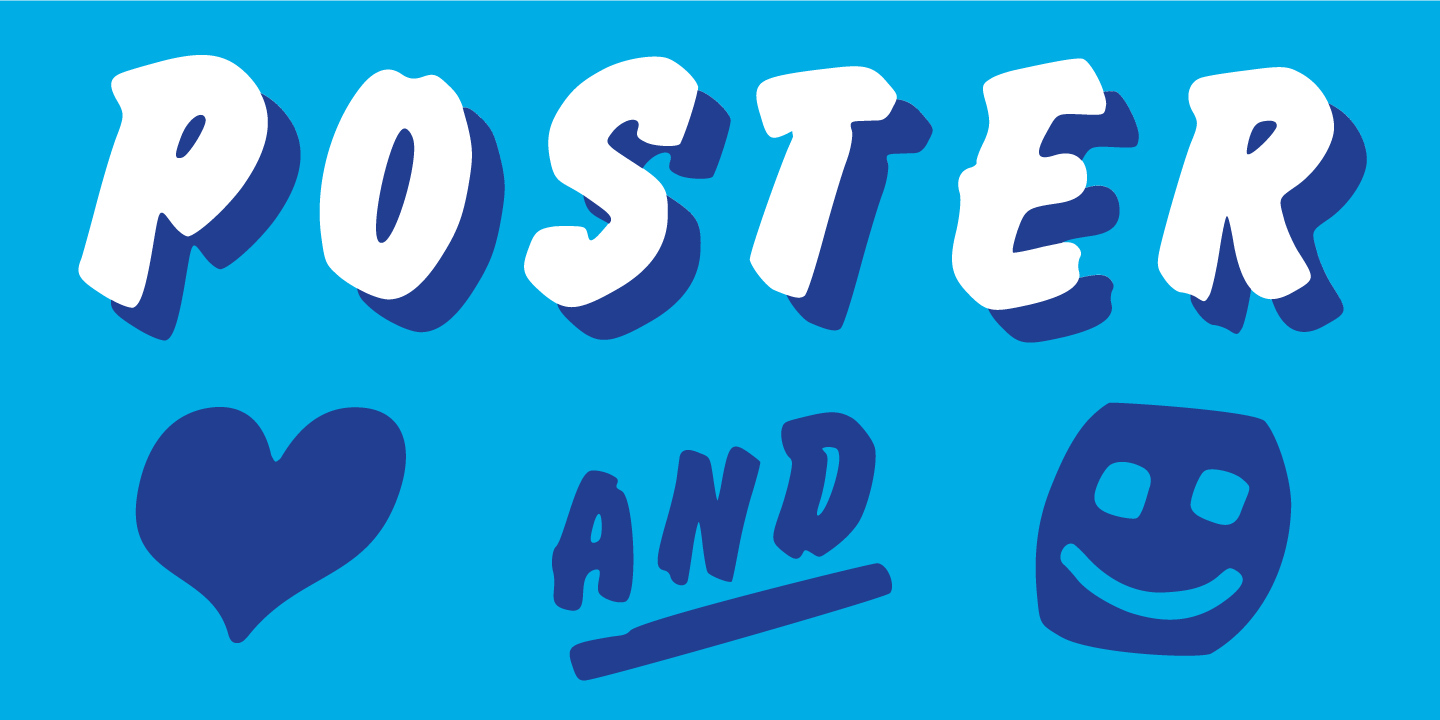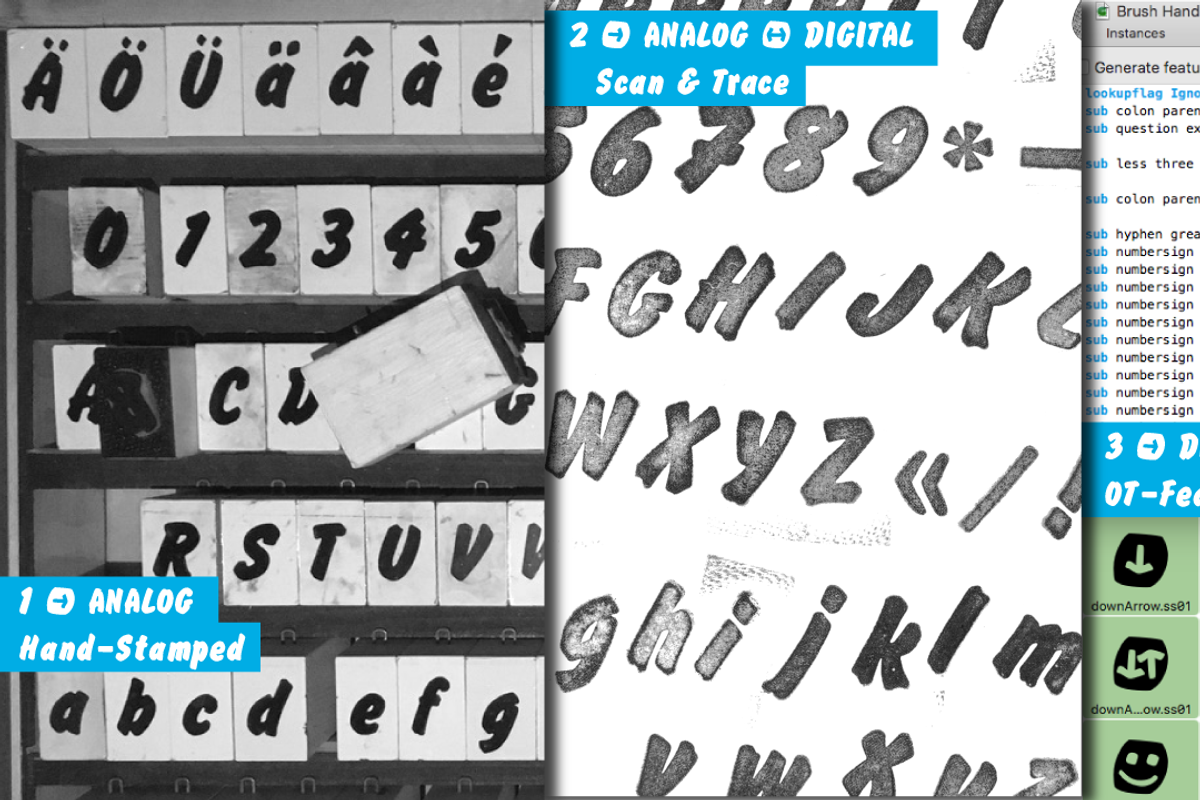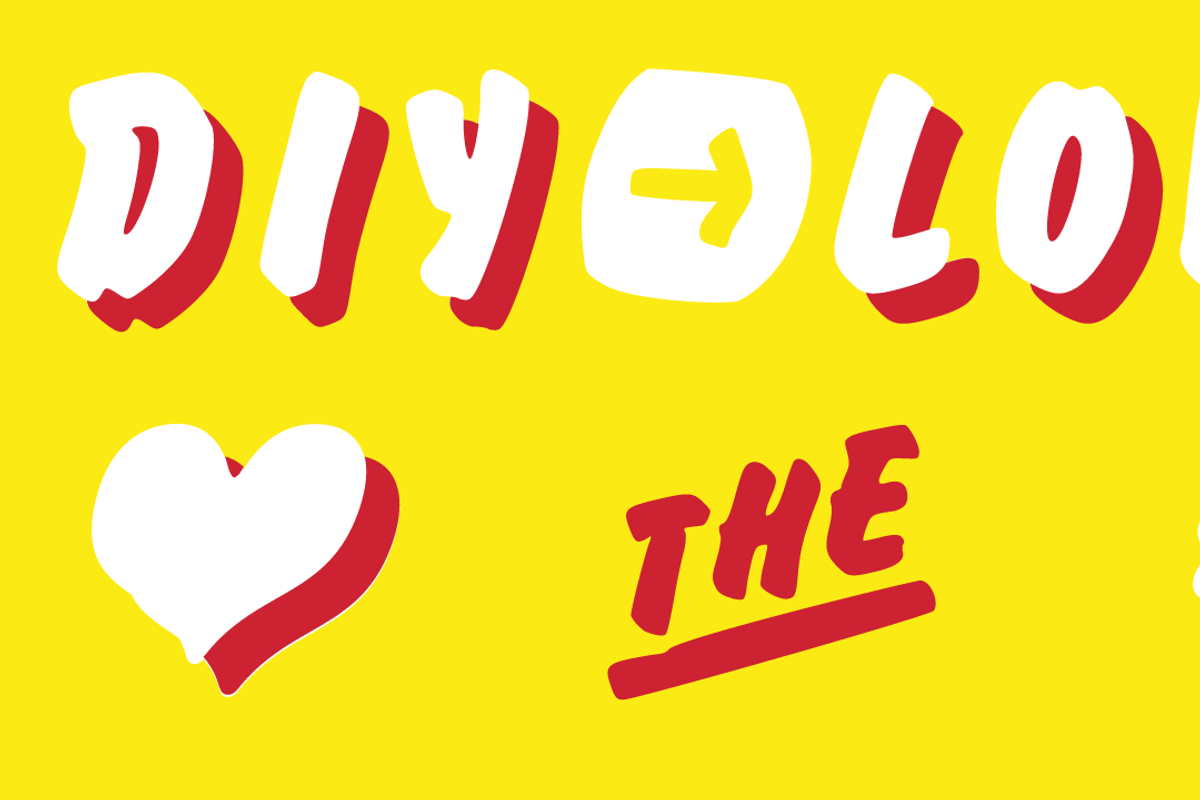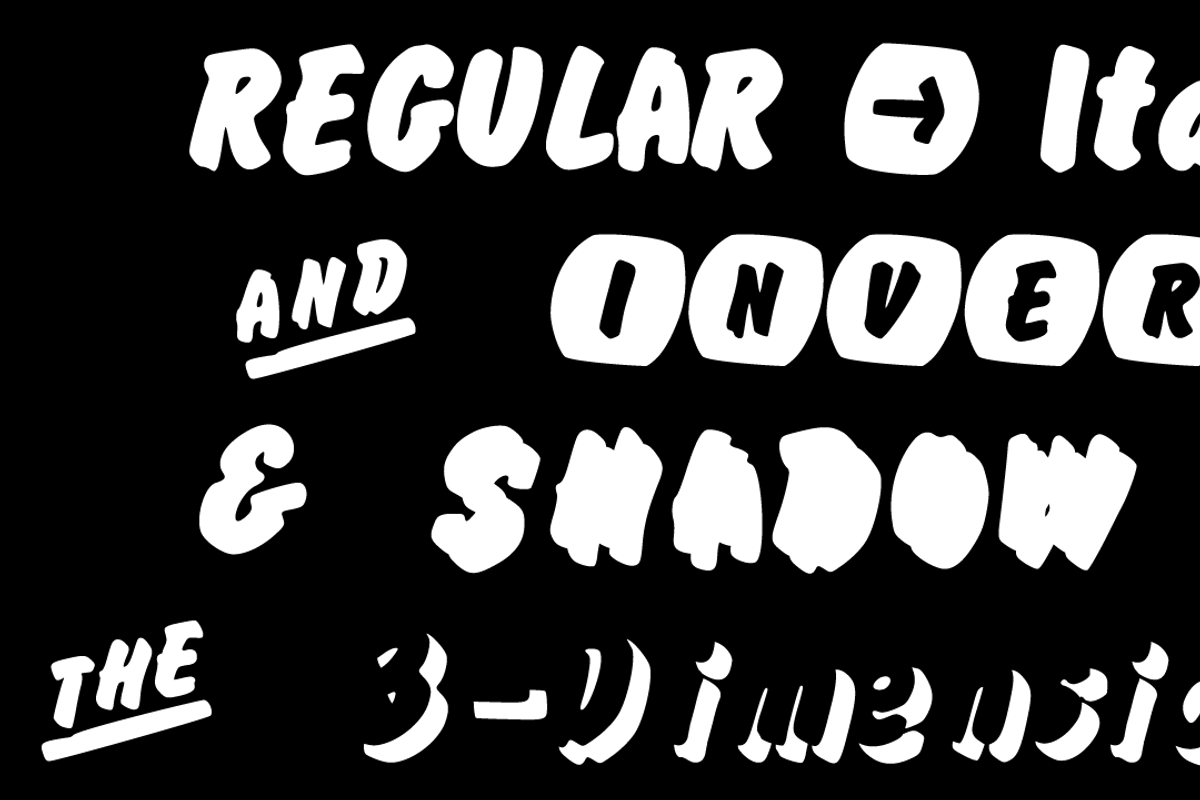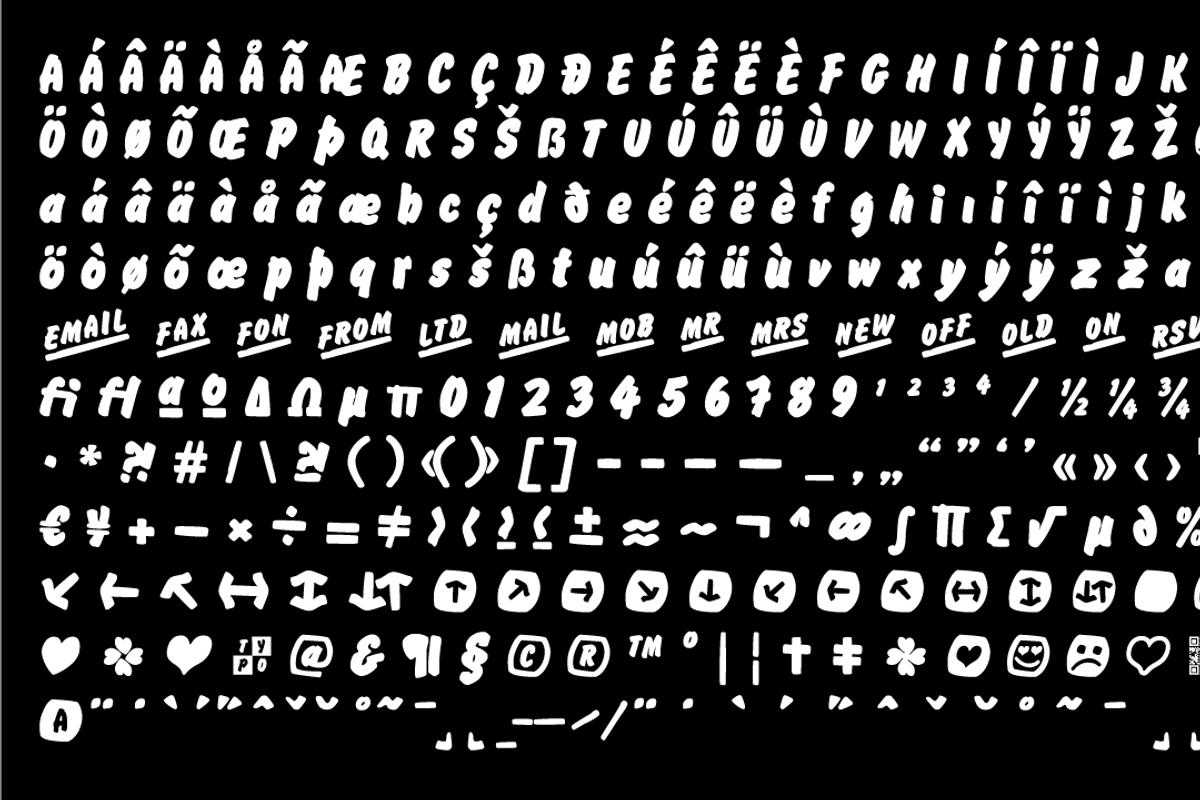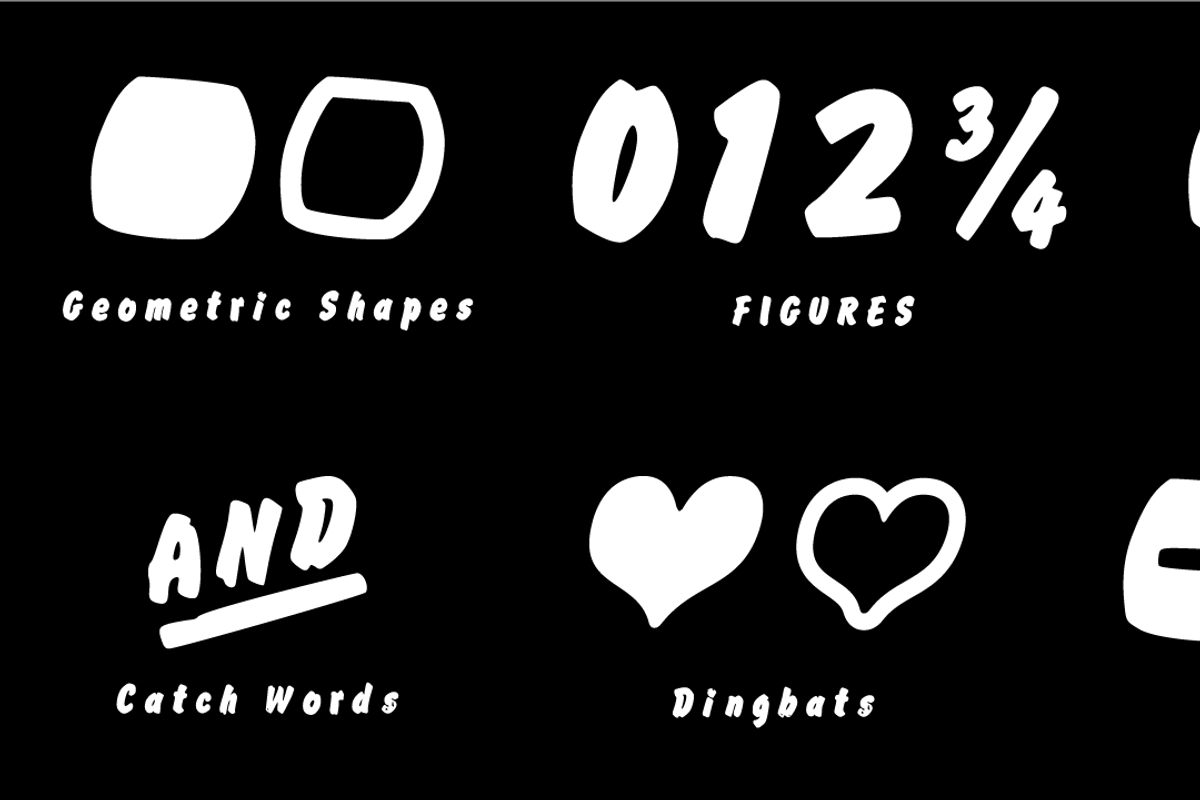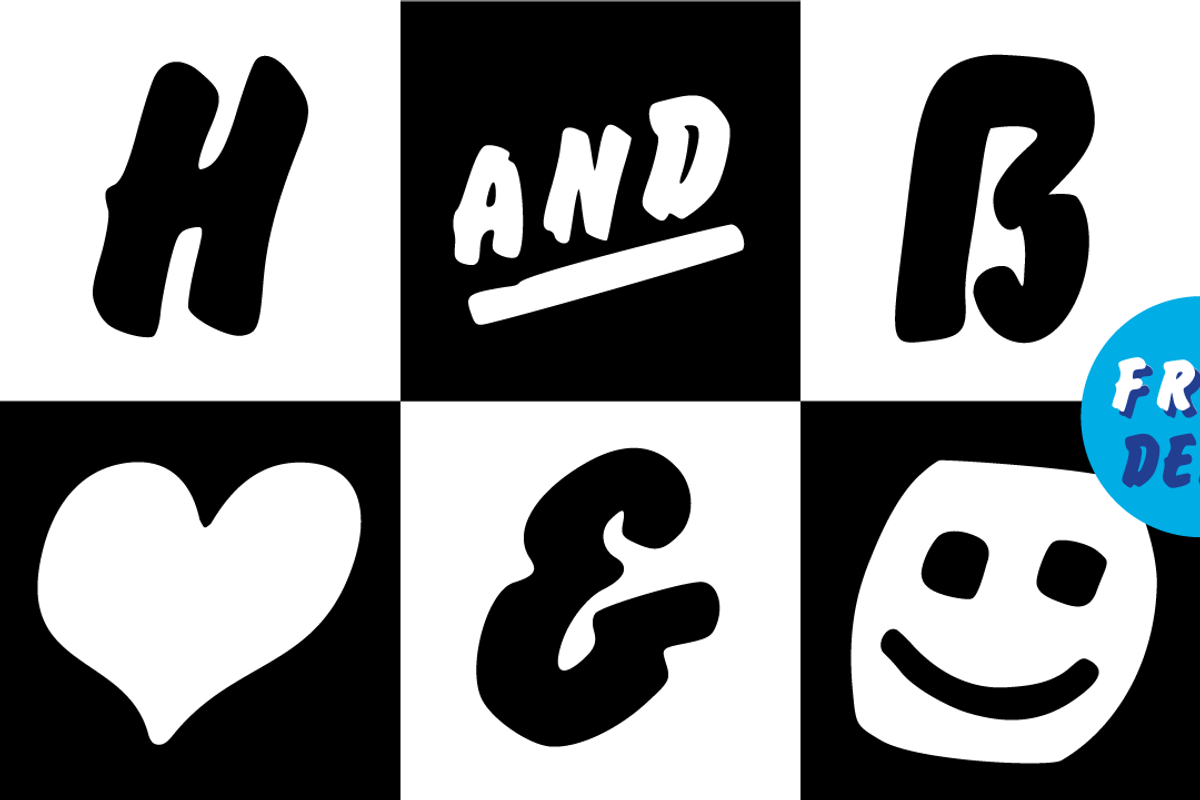
FONT | Brush Hand Marker
The typeface Brush Hand Marker is designed from 2020 for the font foundry Typo Graphic Design by Manuel Viergutz. The rough sans-serif display typeface with 4 font styles (Italic, Invert, Shadow, 3d) is inspired by handwriting.
348 glyphs incl. 100+ decorative extras like icons, arrows, dingbats, emojis, symbols, geometric shapes, catchwords, decorative ligatures (type the word #LOVE for ❤ or #SMILE for ☺ as OpenType-Feature dlig) and stylistic alternates (2 stylistic sets). For use in logos, magazines, posters, advertisement plus as webfont for decorative headlines. The font works best for display size.